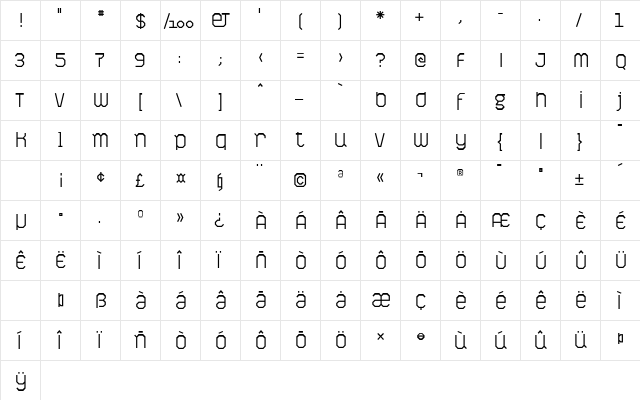
Pictaves Light
Design Context for Pictaves Typeface
Pictaves is a composed and adaptable typeface that performs quietly and consistently across a wide range of design contexts. Its slender proportions lend an understated elegance to any composition.